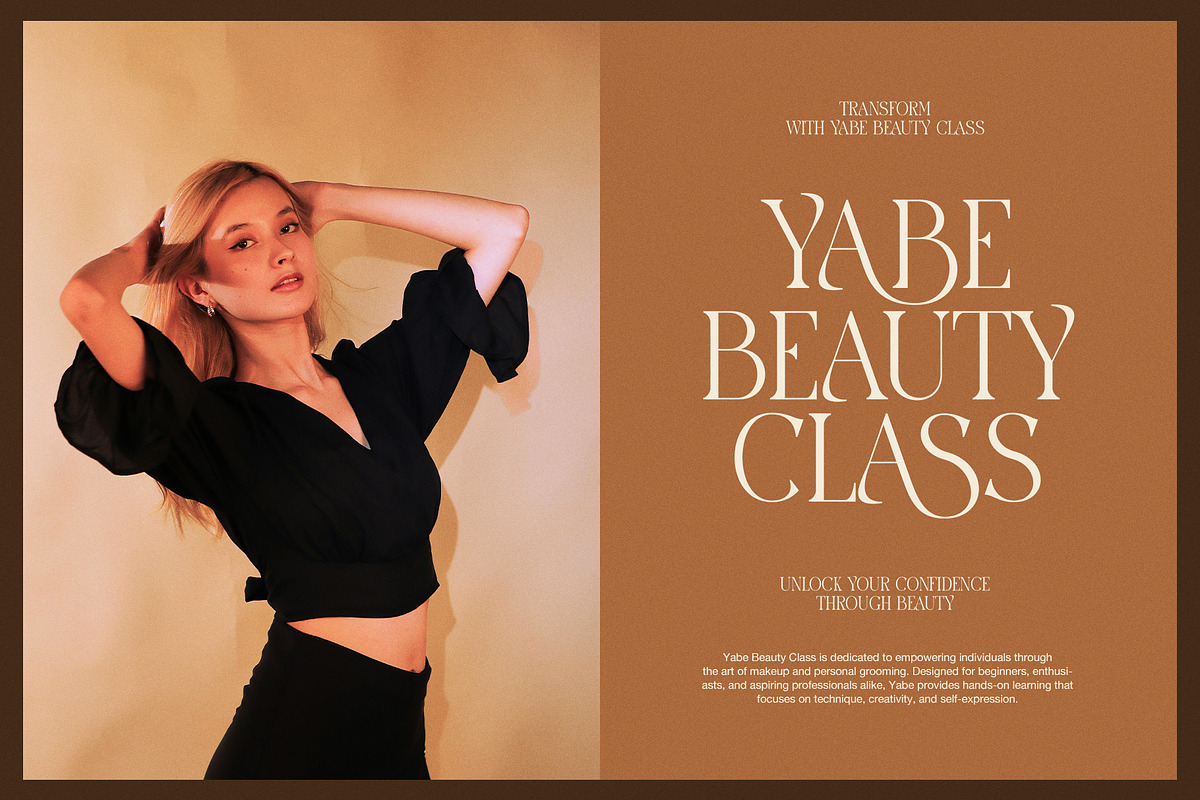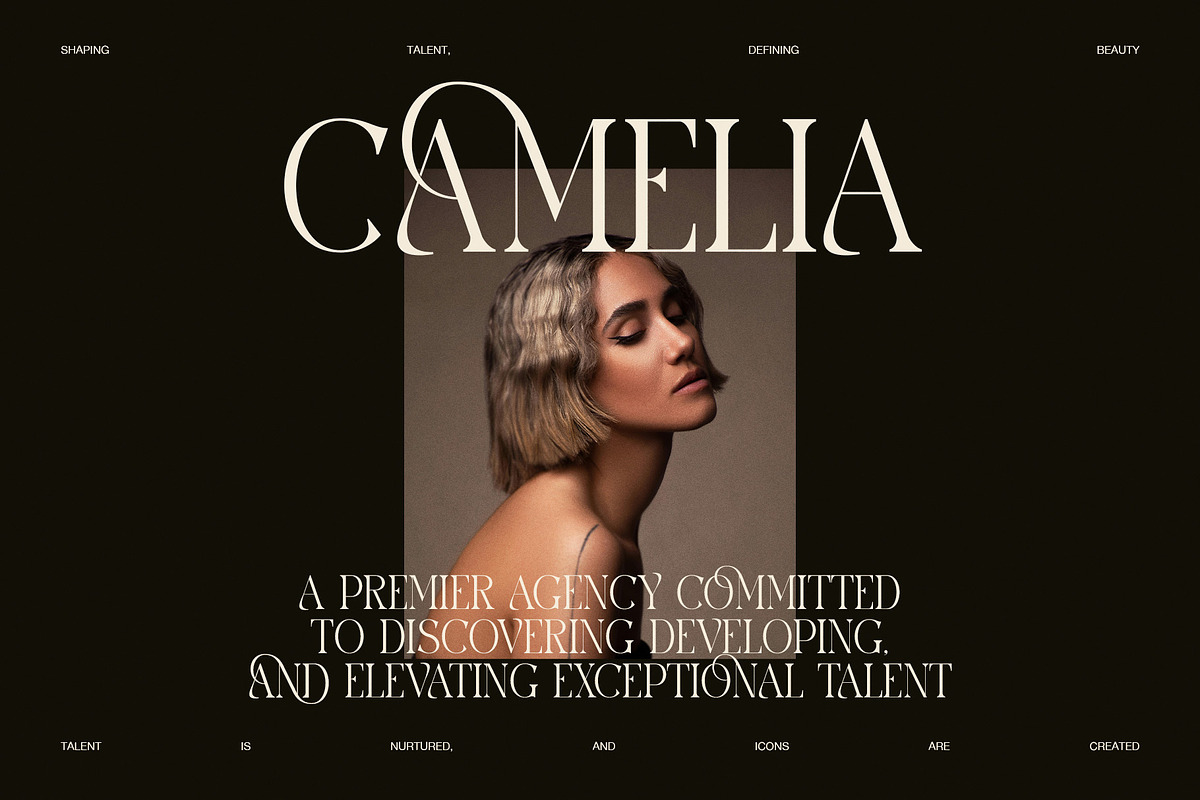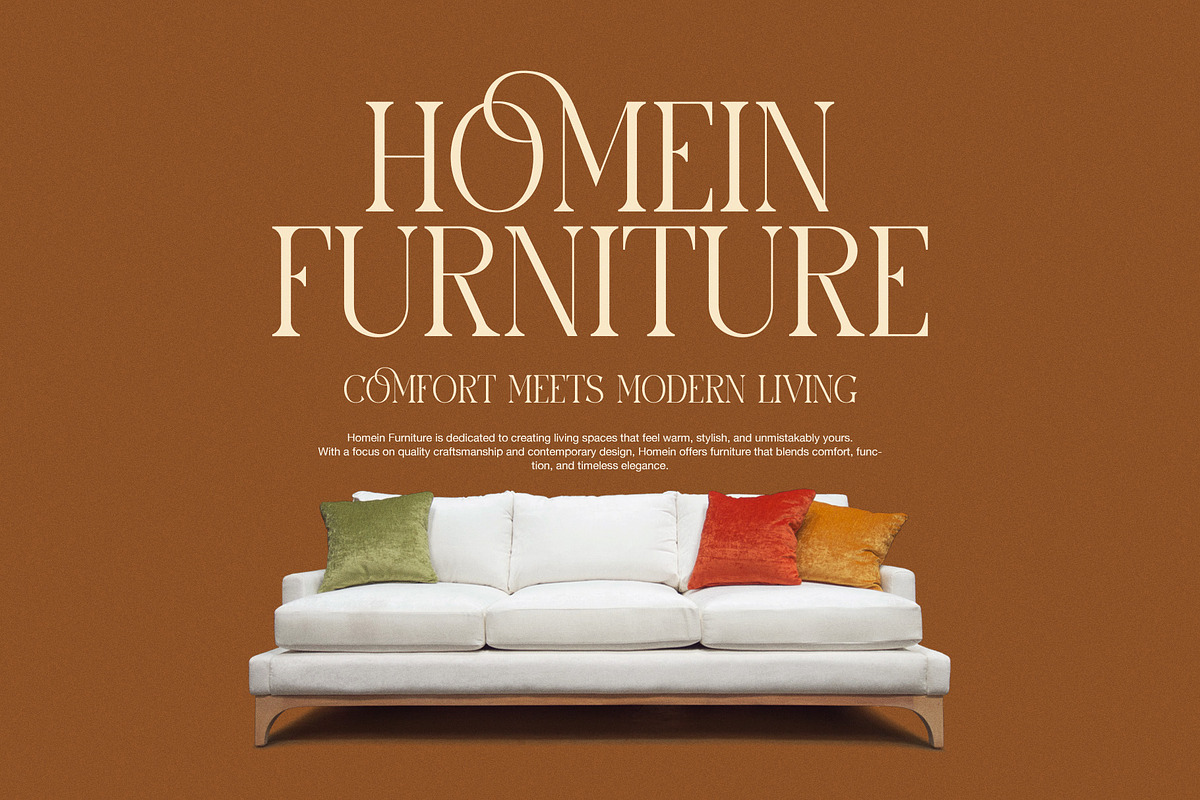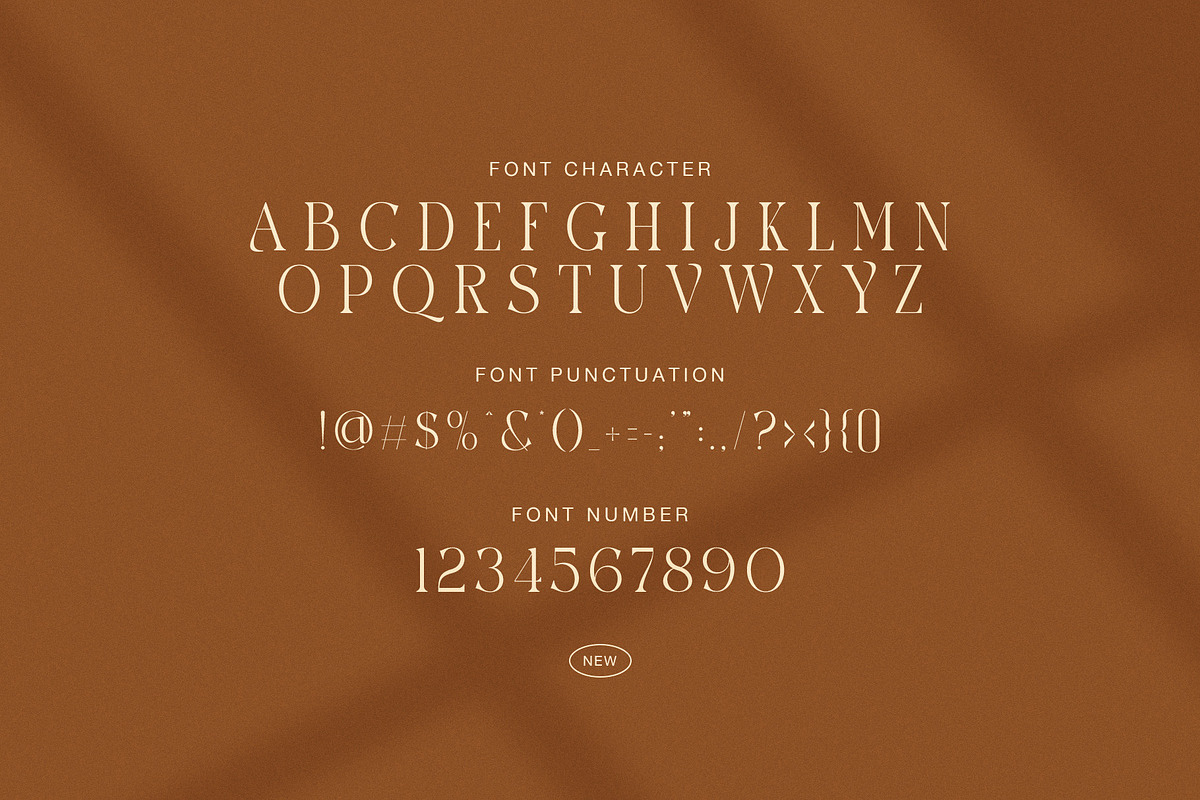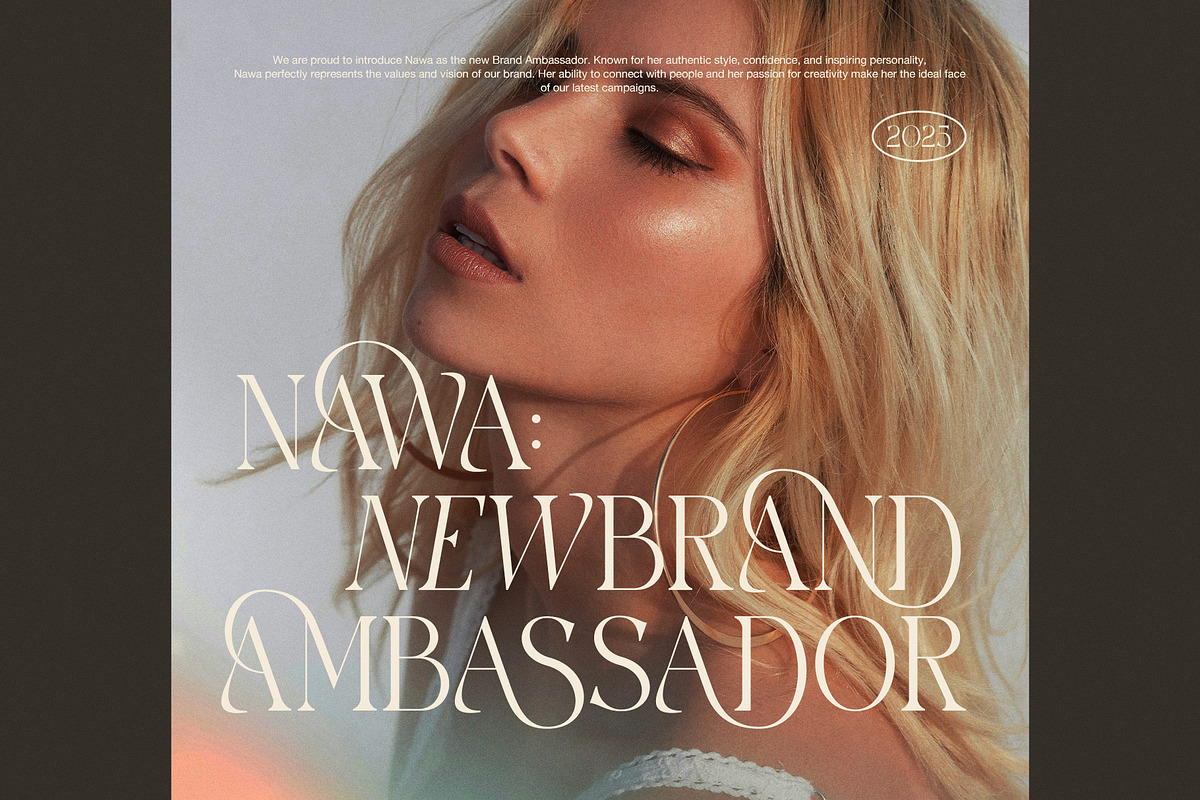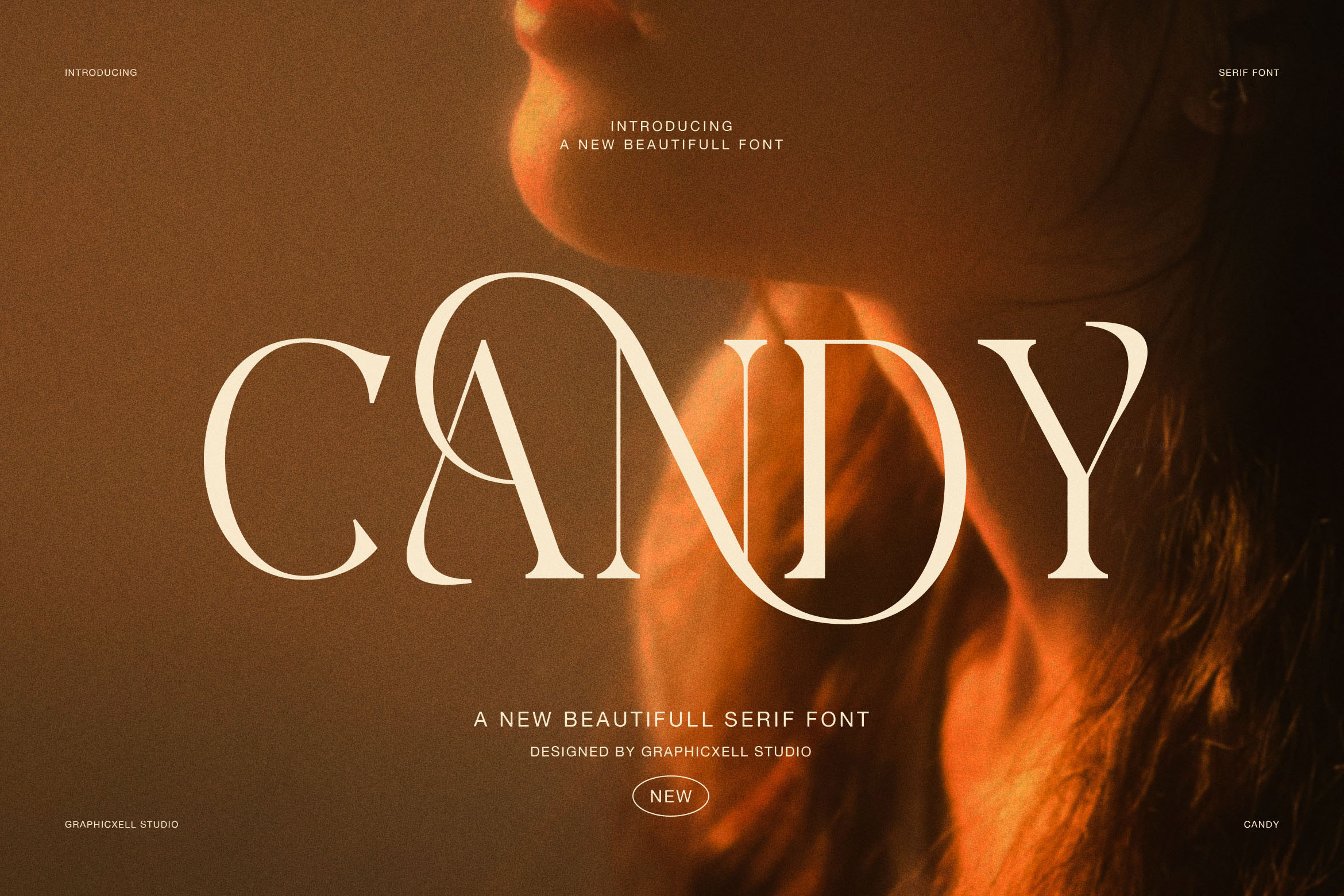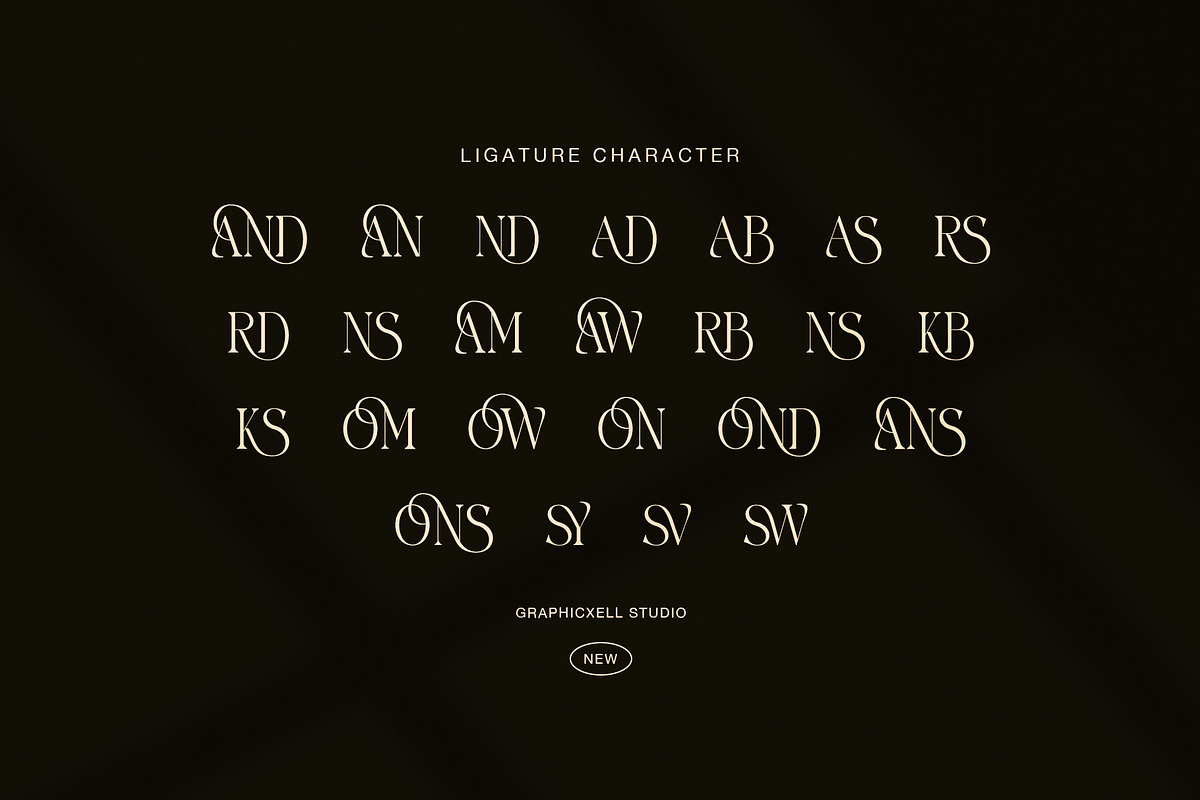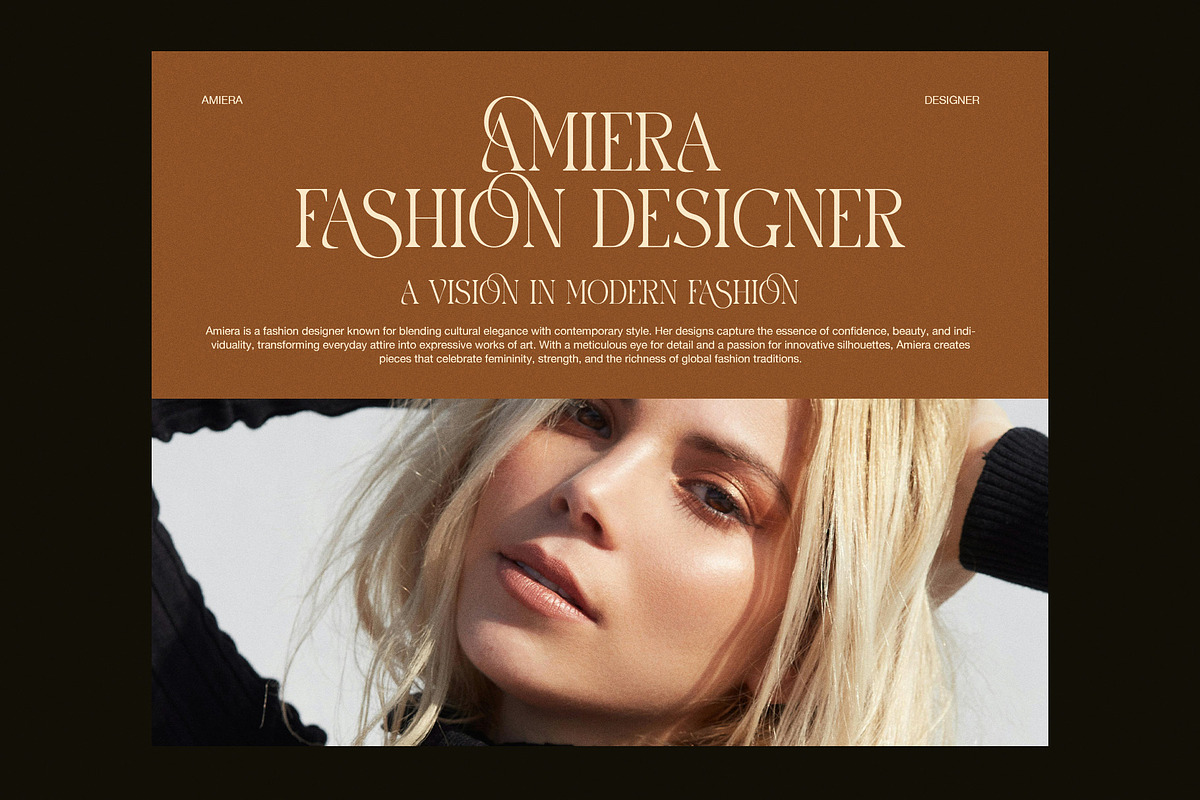
Candy – Elegant Modern Serif Font
Elegant Serif with Soft Modern Style
Candy is an elegant modern serif font designed for stylish and expressive visual work. It blends classic serif structure with soft curves and gentle contrast. Because of this balance, the font feels warm, refined, and easy to use. From branding to editorials, Candy brings a calm and confident tone to every design.
Smooth Letterforms and Balanced Shapes
Each letter in Candy features clean lines and smooth transitions. As a result, words look natural and visually pleasing. In addition, the rounded details soften the overall appearance, which creates a friendly yet professional feel. These qualities help the font stand out without feeling heavy or stiff.
Ligatures for Natural Flow
Candy includes elegant ligatures that improve visual flow. These ligatures connect letters in a subtle and stylish way. Therefore, headlines and titles feel more organic and expressive. At the same time, readability remains strong, even in longer phrases.
Perfect for Branding and Lifestyle Design
Because of its modern serif character, Candy adapts well to many creative projects. It works especially well in designs that need warmth and elegance, such as:
Fashion and beauty branding
Editorial layouts and magazine covers
Home décor and furniture visuals
Wellness, skincare, and lifestyle design
Posters, campaigns, and social media graphics
Clear Readability Across Media
Candy performs well on both light and dark backgrounds. The contrast between strokes improves clarity while keeping a soft look. As a result, the font stays readable in print and digital formats. Whether used online or offline, it keeps a consistent style.
Designed for Reliable Use
Candy is built with clean outlines and consistent spacing. Therefore, it works smoothly in professional design software. Designers can focus on creativity instead of fixing details. In conclusion, Candy is a versatile serif font that combines elegance, warmth, and modern usability.